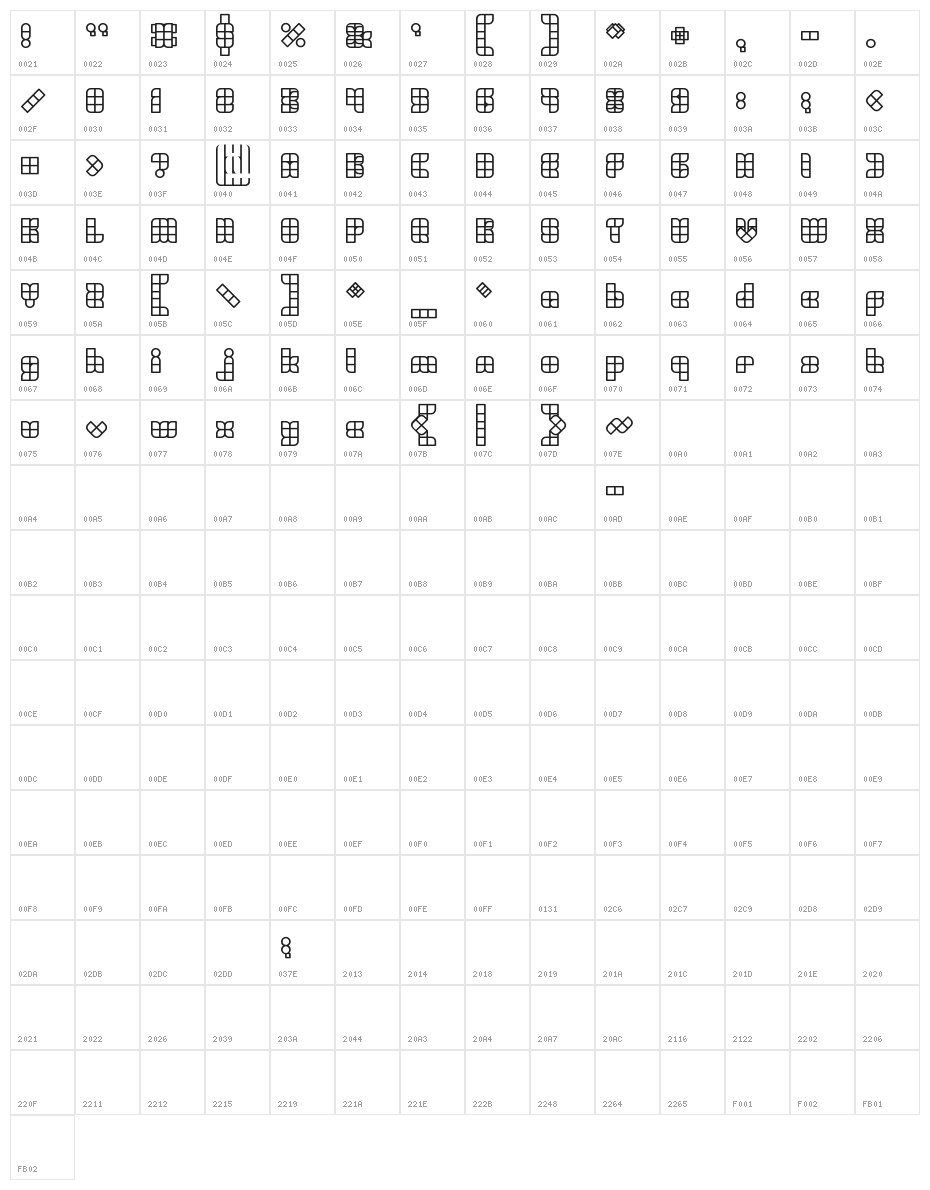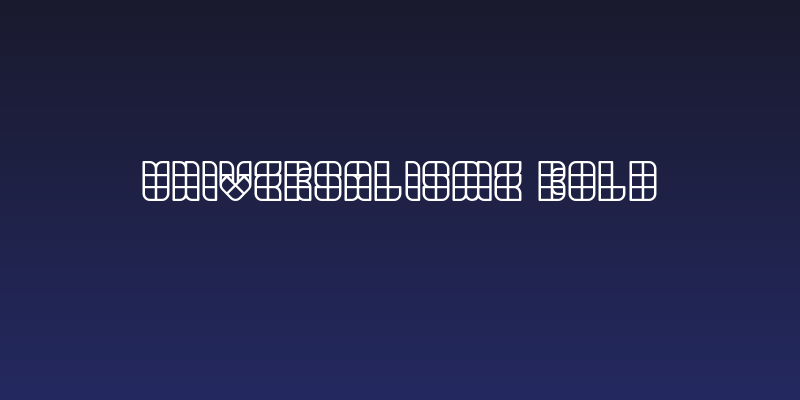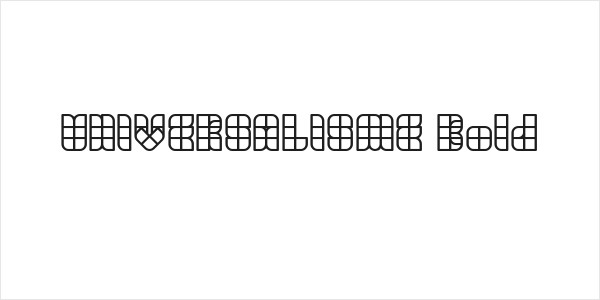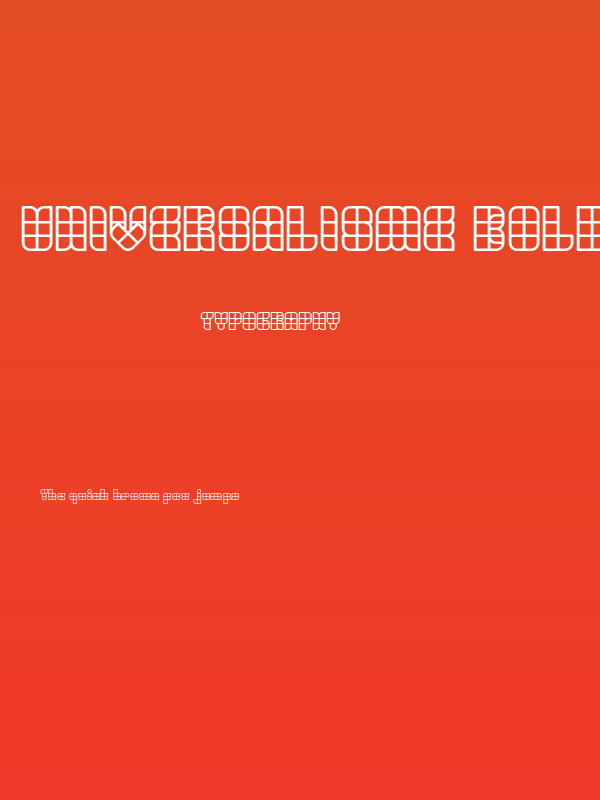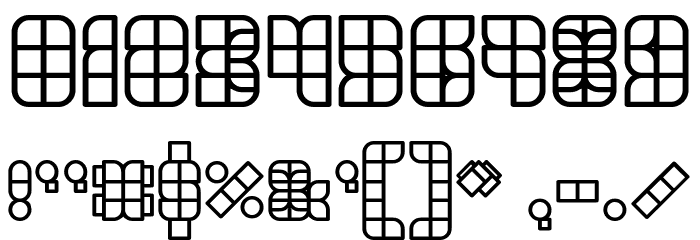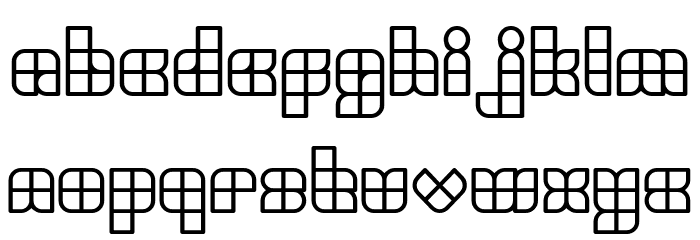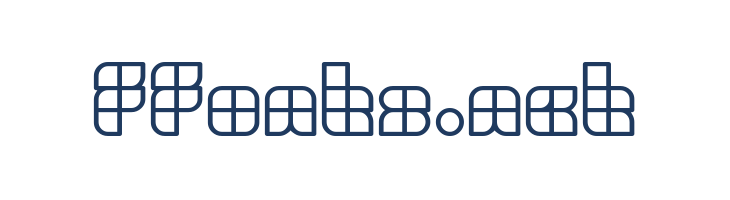
UNIVERSALISME Bold Font
UNIVERSALISME Bold Description
This font features a unique and modern geometric design, characterized by its grid-like structure and bold outlines. Each character is composed of interconnected squares and rectangles, creating a visually striking and futuristic appearance. The uniformity in shape gives it a digital or pixelated feel, reminiscent of early computer graphics or architectural blueprints. The font maintains a consistent weight throughout, with each letterform exhibiting a perfect balance between negative and positive space. This design choice enhances readability while also providing a distinct aesthetic that stands out in any context.